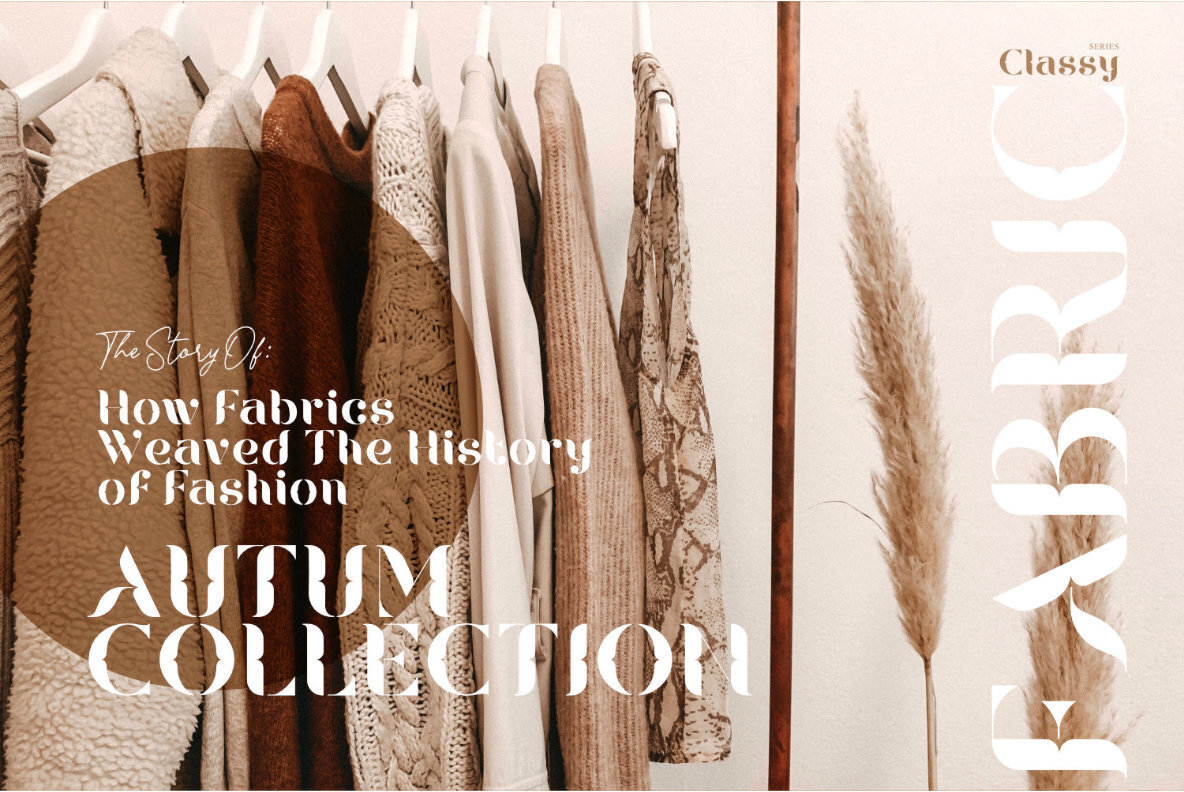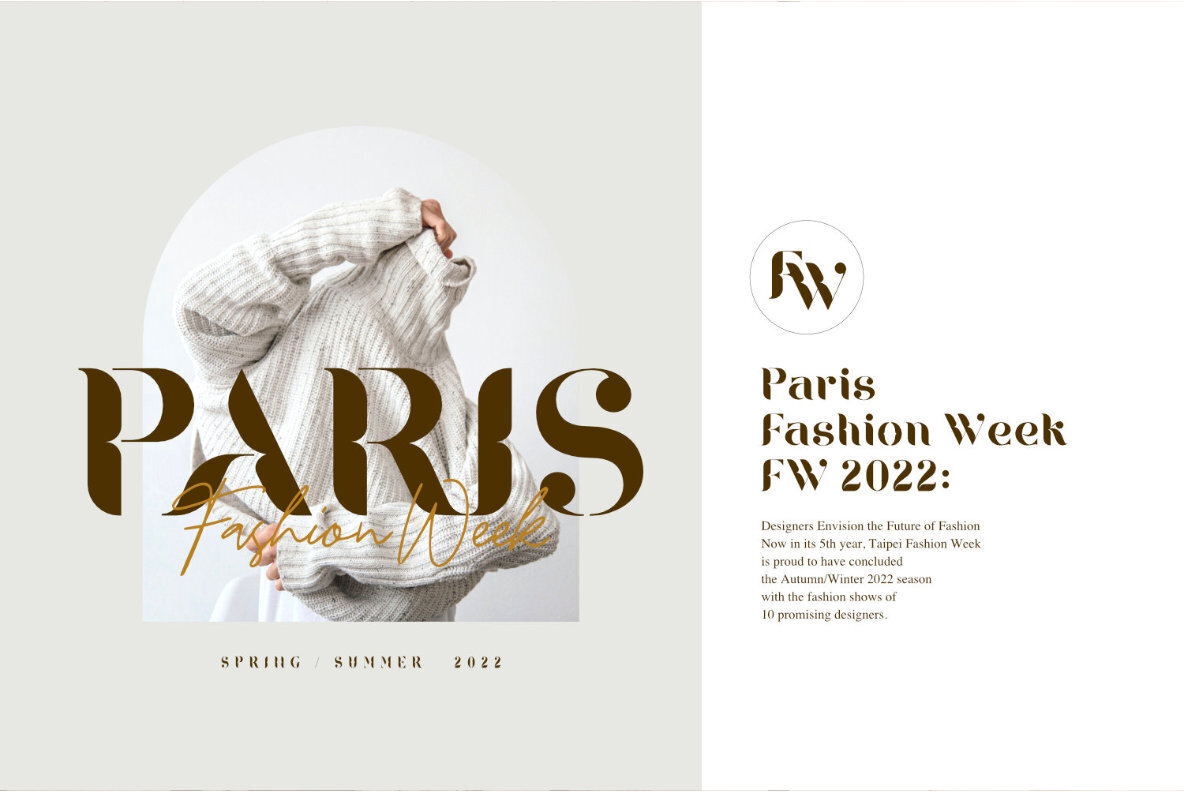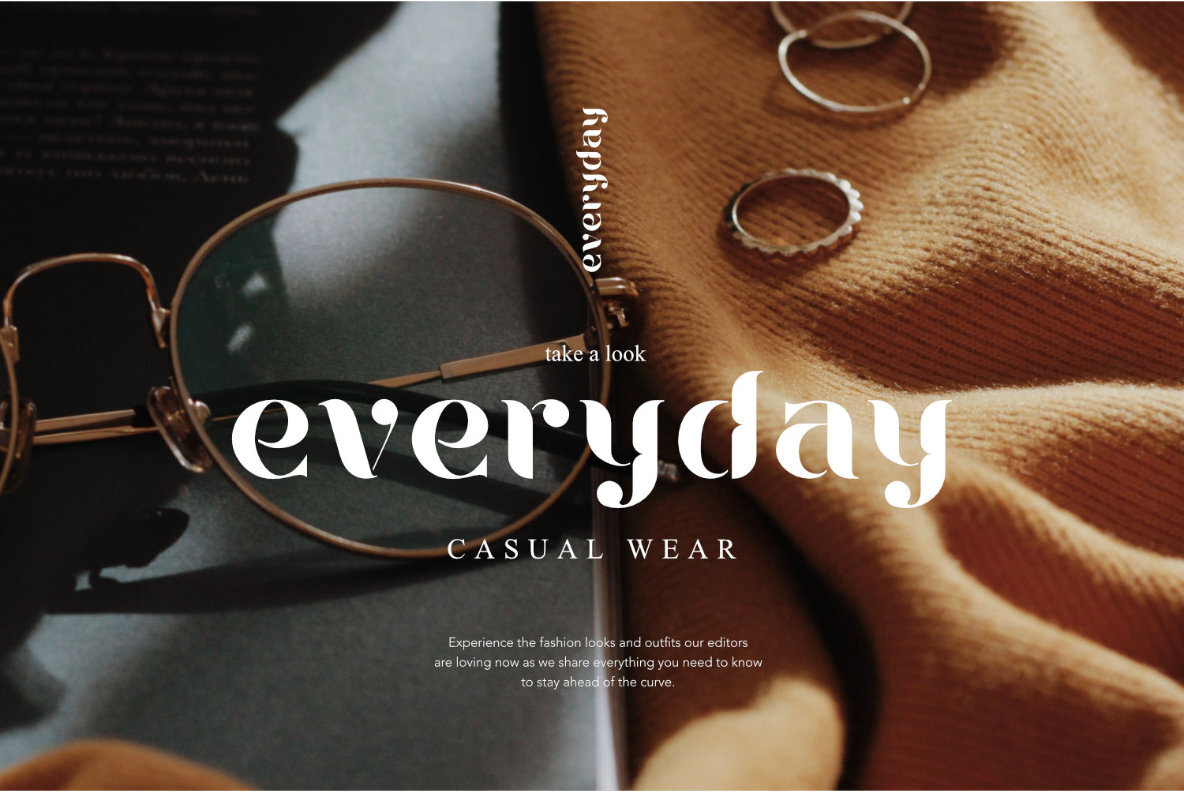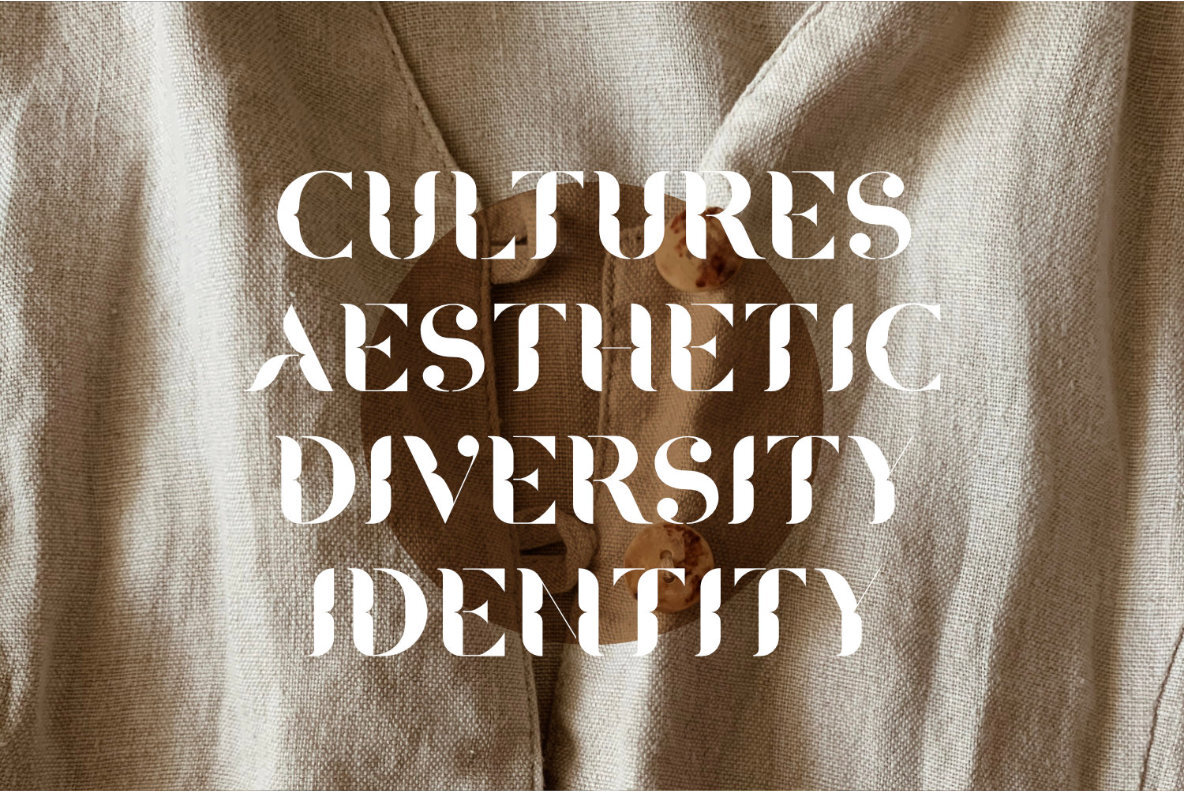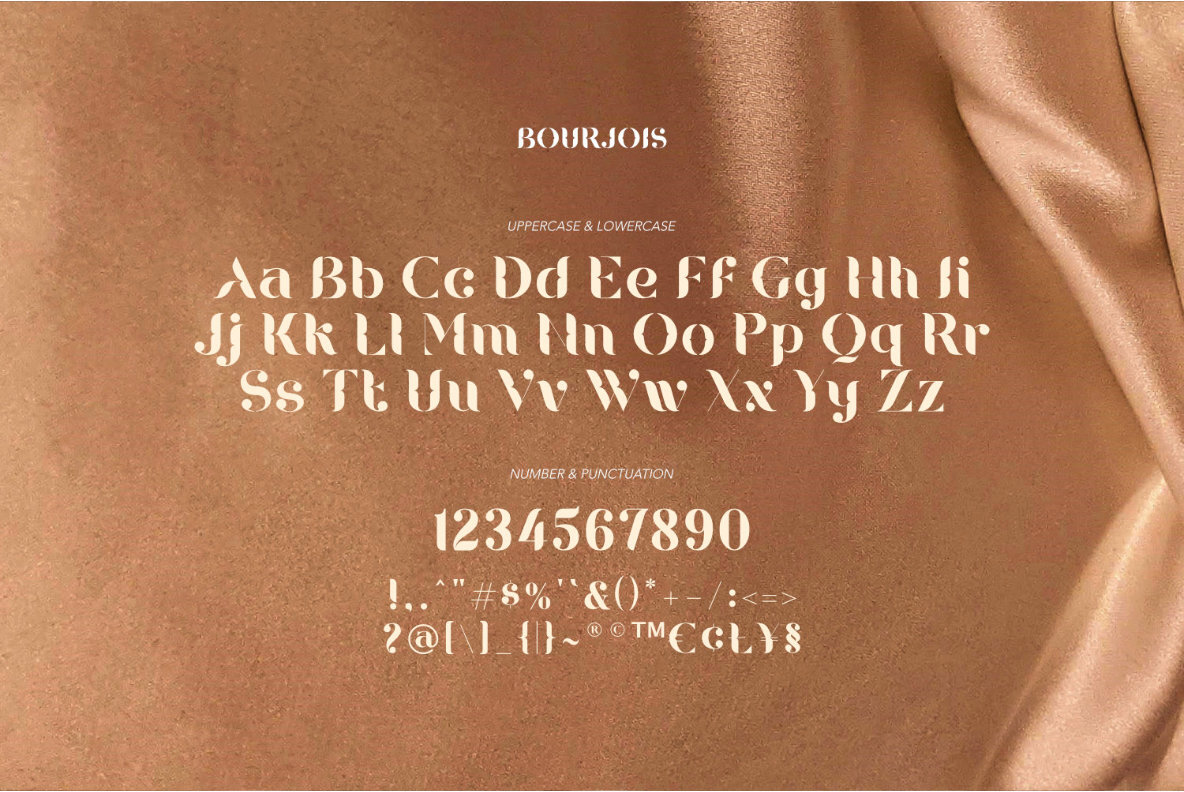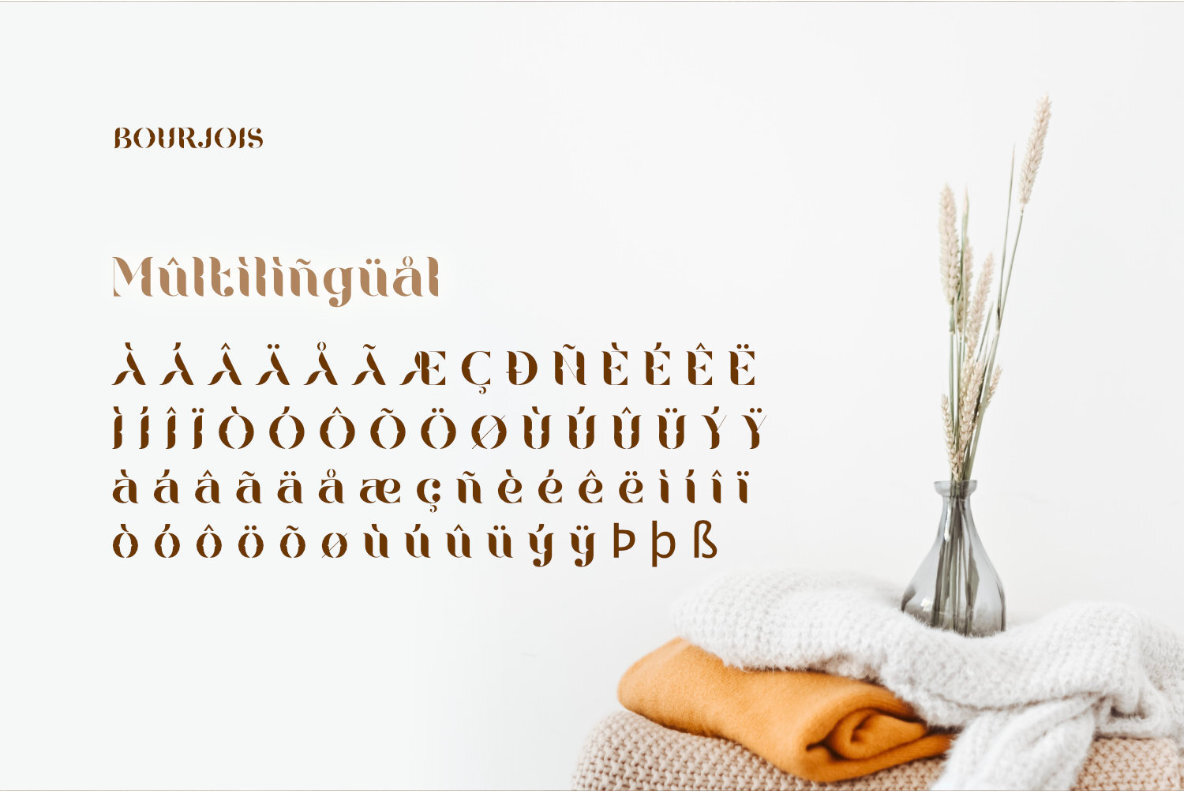
Bourjois Font
Bourjois, created by ikiiko, is a luxurious display font inspired by the aesthetic of the bourgeoisie. This typeface exudes a refined elegance with its distinctive curves and light feminine undertones, making it an ideal choice for projects requiring a touch of class and sophistication. Bourjois is perfect for elegant logos, branding, and beauty products like perfumes and cosmetics. It also complements wedding invitations, magazine designs, packaging, and other luxury projects. Its classic yet contemporary charm ensures it stands out in any application, from high-end branding to stylish personal projects.Bourjois: A Sophisticated Display Typeface